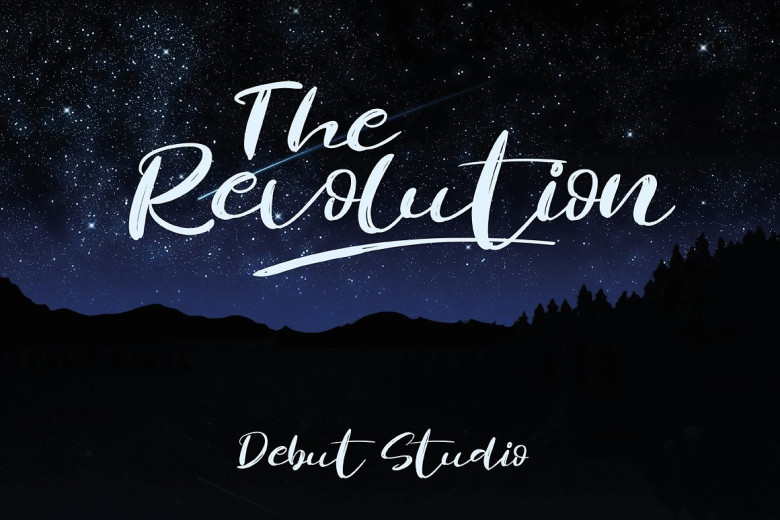
Revolution Brush Font
Hi designer. This is a very impressive font brush. If you are looking for a brush type then this is it! Please add it now to your fonts collection. Introducing Revolution Font. Revolution is an created by Debut Studio. This font was handmade, really awesome to make your designs with nice background or photo, and give you nice texting to your some write on the paper. This font also suitable for your awesome works like Poster, Logo, T-Shirt Design, Advertisement, Quote Display, Wedding Invitation etc